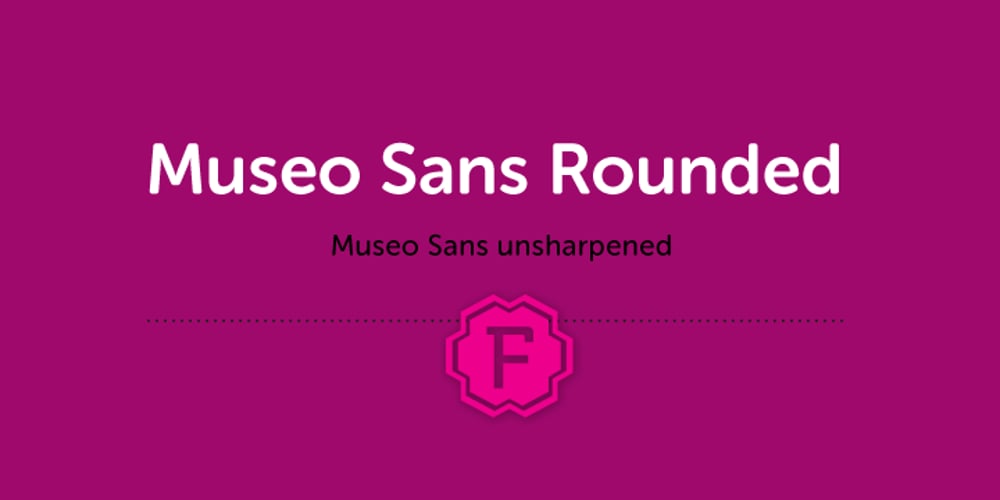
Museo Sans Rounded
Museo Sans Rounded font
Museo Sans Rounded Font Family was designed by Jos Buivenga and published by exljbris. Museo Sans Rounded contains 12 styles and family package options. Museo Sans gently unsharpened… that’s Museo Sans Rounded. It doesn’t have italics, but is does have a very heavy 1000 weight. The spacing and kerning has been optimized for display use. Museo Sans Rounded was designed by Jos Buivenga of exljbris Font Foundry.